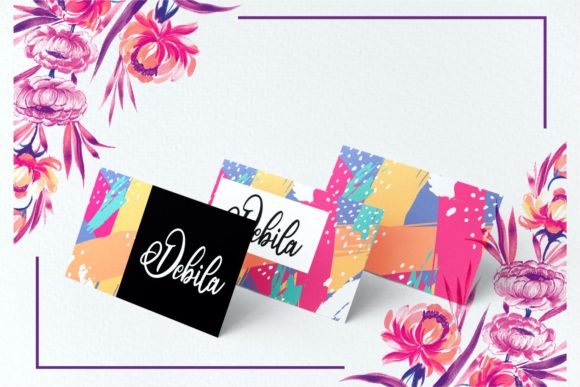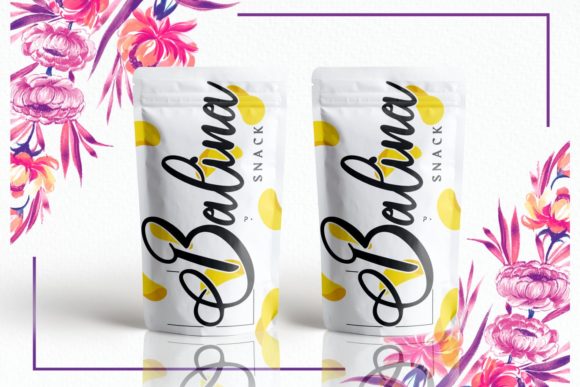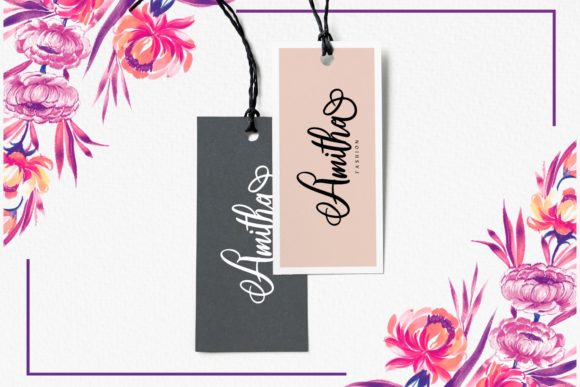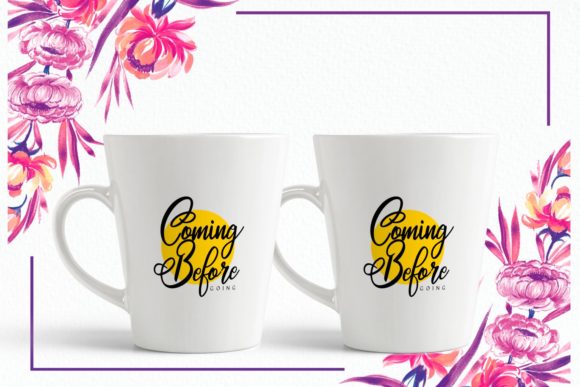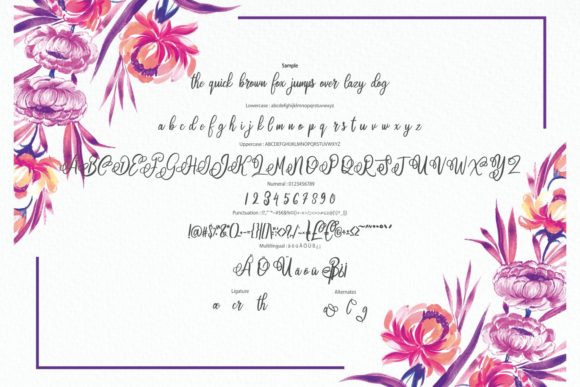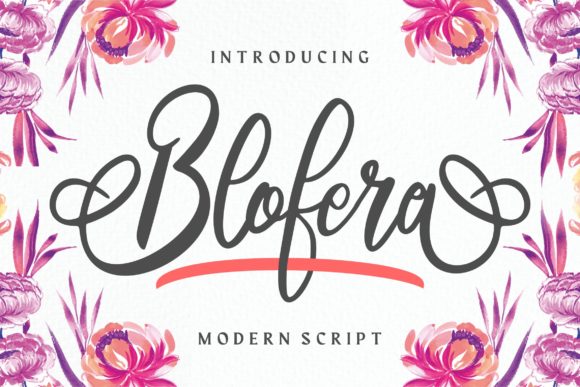
Blofera Font: Elevate Your Designs with Elegance and Charm
Are you a designer or crafter looking for a unique and captivating font to elevate your creative projects? Look no further than Blofera Font, an elegant and dainty handwritten font that features sweet and delicate swashes. With its original look and versatility, Blofera is perfect for a wide range of crafty ideas, from letterheads and titles to stationery and more.
The Beauty of Blofera Font
Blofera Font boasts a distinctive, hand-crafted aesthetic that is sure to capture the attention of your audience. Its elegant and dainty design features sweet, delicate swashes that add a touch of sophistication and whimsy to any design. The font’s unique look is perfect for designers and crafters who want to create visually stunning projects that stand out from the crowd.
One of the best things about Blofera Font is its versatility. This amazing font can be used for a wide range of projects, including:
- Letterheads and titles: Add a touch of elegance to your business correspondence with Blofera Font.
- Stationery: Create beautiful, one-of-a-kind stationery that showcases your personality and style.
- Branding: Use Blofera Font to create a unique and memorable brand identity that sets you apart from the competition.
- Packaging: Add a touch of whimsy and charm to your product packaging with Blofera Font.
- Digital designs: Use Blofera Font to create stunning digital designs, such as social media graphics, blog headers, and more.
Why Choose Blofera Font?
So why choose Blofera Font for your next project? Here are just a few reasons:
- Unique and original design: Blofera Font features a distinctive, hand-crafted design that is sure to capture the attention of your audience.
- Elegant and dainty: The font’s elegant and dainty design makes it perfect for projects that require a touch of sophistication and whimsy.
- Versatile: Blofera Font can be used for a wide range of projects, from letterheads and titles to stationery and digital designs.
Tips for Using Blofera Font
Here are a few tips for using Blofera Font in your next project:
- Pair with other fonts: Blofera Font pairs well with other fonts, such as sans-serif fonts and script fonts.
- Use for headlines and titles: Blofera Font is perfect for headlines and titles, where its elegant and dainty design can really shine.
- Add a personal touch: Use Blofera Font to add a personal touch to your designs, such as a handwritten note or a custom illustration.
Key Features of Blofera Font
- Elegant and dainty handwritten font
- Sweet and delicate swashes
- Original and unique design
- Perfect for letterheads, titles, stationery, and more
Whether you’re a designer, crafter, or DIY enthusiast, Blofera Font is the perfect choice for your next project. So go ahead, get creative, and see what amazing designs you can create with Blofera Font!